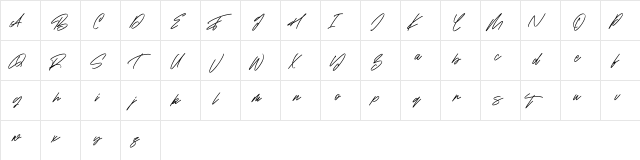
Beauty Flome Free Regular
Design Context for Beauty Flome Free Typeface
Beauty Flome Free is a composed and adaptable typeface that performs quietly and consistently across a wide range of design contexts.
Pro Tip: Use Beauty Flome Free in both headline and body roles to test its range before committing to a single application.